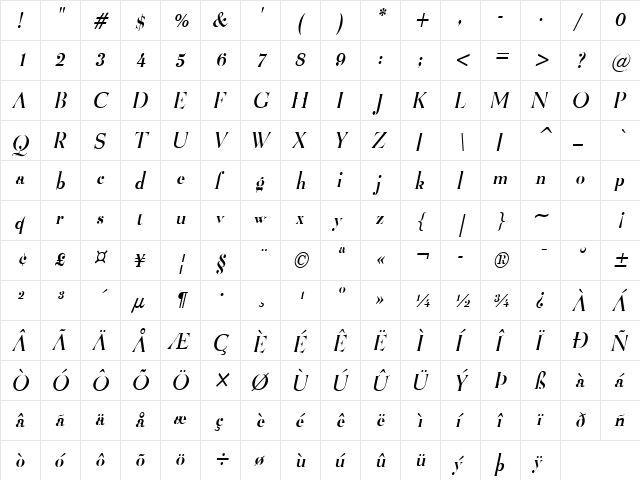
Luciano-Condensed Italic Font Preview
Design Context for Luciano-Condensed Typeface
Luciano-Condensed takes a measured approach to typography — its balanced proportions and neutral character make it a reliable workhorse for both digital and print work. The slanted form adds forward momentum and visual energy. The condensed width makes it efficient for tight spaces without sacrificing legibility.